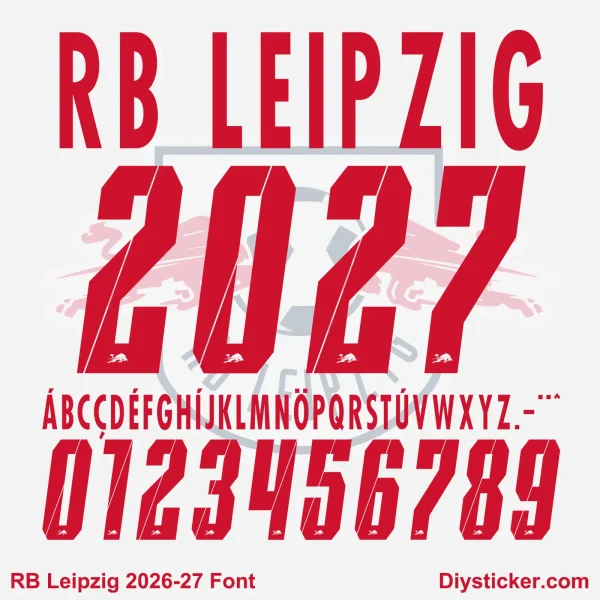
Get the Authentic RB Leipzig 2026-27 Font for Your Designs
Upgrade your creative toolkit with the highly anticipated RB Leipzig 2026-27 Font. This professional-grade typography kit is designed specifically for football fans, kit collectors, and graphic designers who demand precision. Whether you are restoring a classic jersey or creating custom merchandise, this font kit provides the exact aesthetic for the upcoming season.
Perfect for Jersey Restoration and DIY Projects
If you are a fan of Bundesliga style, this RB Leipzig 2026-27 Font is essential for maintaining the authenticity of your kit collection. Use these files to create high-trust DIY stickers or custom nameplates. Our kit includes the full alphabet and numbering system, complete with the intricate internal line details and club branding at the base of each digit.